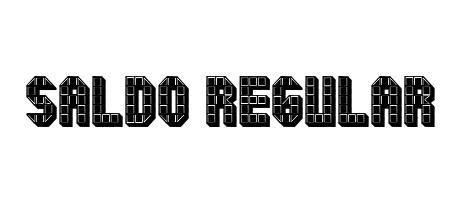
Saldo
Saldo Regular is a bold, geometric sans-serif typeface. Its letters are composed of thick, blocky strokes, reminiscent of pixel art or industrial design. The consistent weight and sharp angles give it a strong, almost mechanical feel. Small, internal details add a subtle texture, preventing the font from being too stark. It's a modern, impactful font ideal for headlines and branding where a rugged, yet sophisticated look is desired.
Saldo Regular